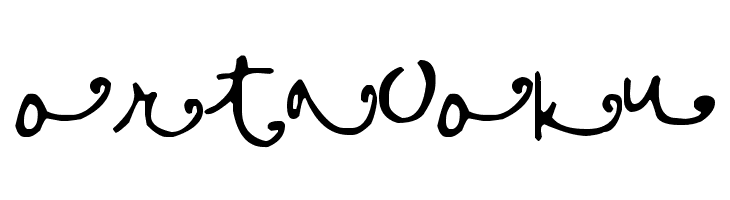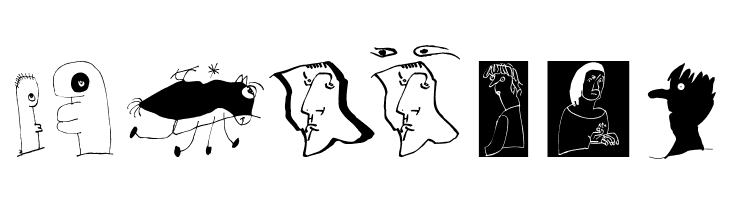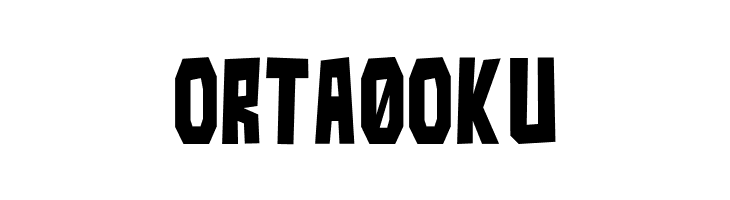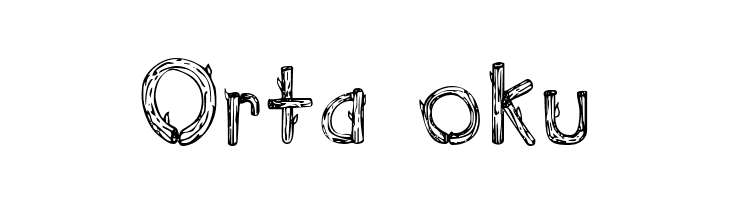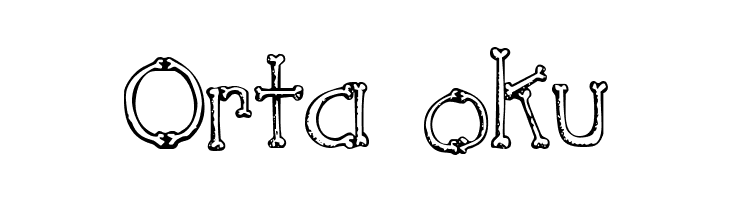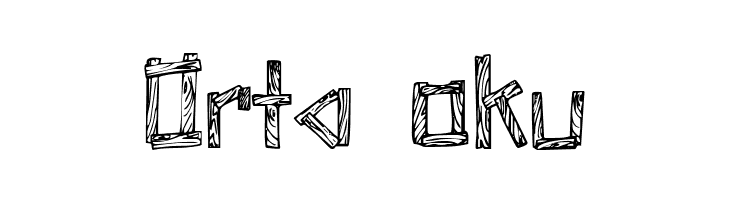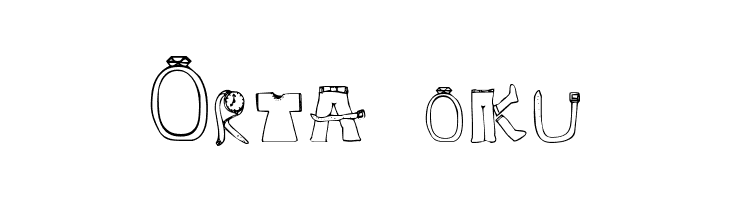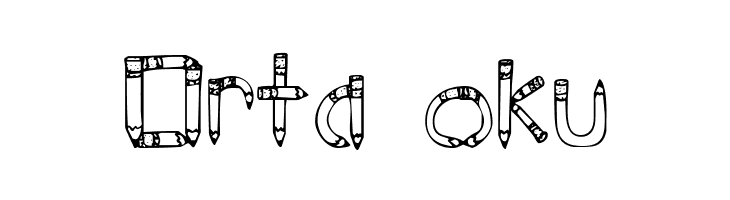
• Simple Slum__G
A bold, angular font with an urban, hand-crafted aesthetic.
• Simple Slum__G
A bold, angular font with a modern, urban style.
• Sisters
A whimsical and elegant script font with decorative loops and swirls.
• SixteenSegments
A segmented, digital-style font with a retro LED display aesthetic.
• SketchBoards
A hand-drawn, sketch-style font with textured, irregular strokes.
• SketchBones
A playful, bone-themed decorative font ideal for spooky designs.
• SketchClothes
A playful, clothing-themed decorative font with a hand-drawn style.
• SketchingDiaryOne
A whimsical, hand-drawn illustrative font with abstract and playful sketches.
• SketchLogs
• SketchPencils
A playful, pencil-themed decorative font ideal for creative projects.